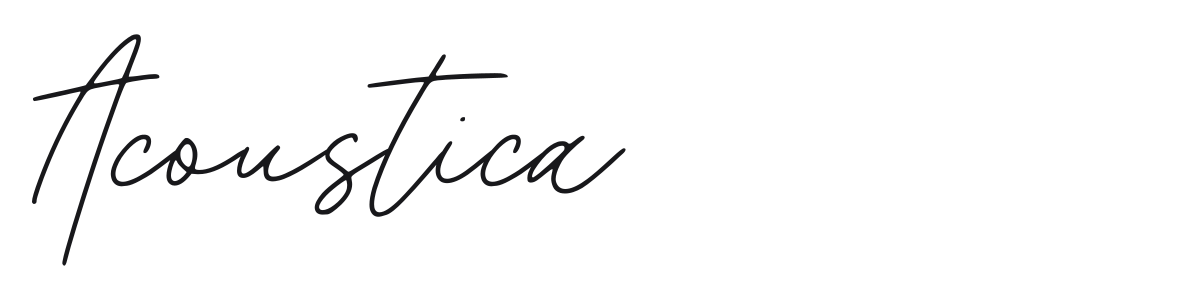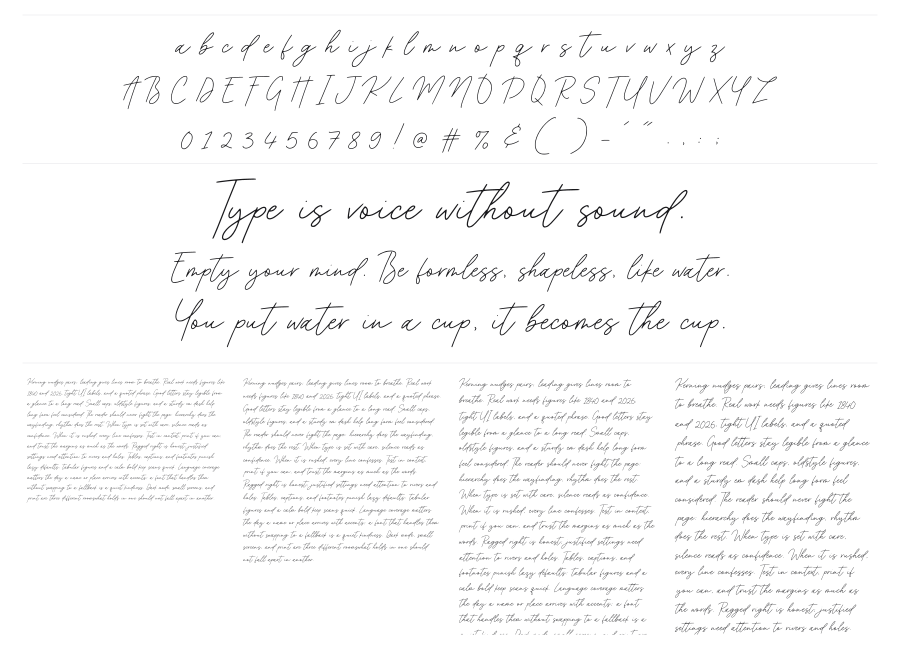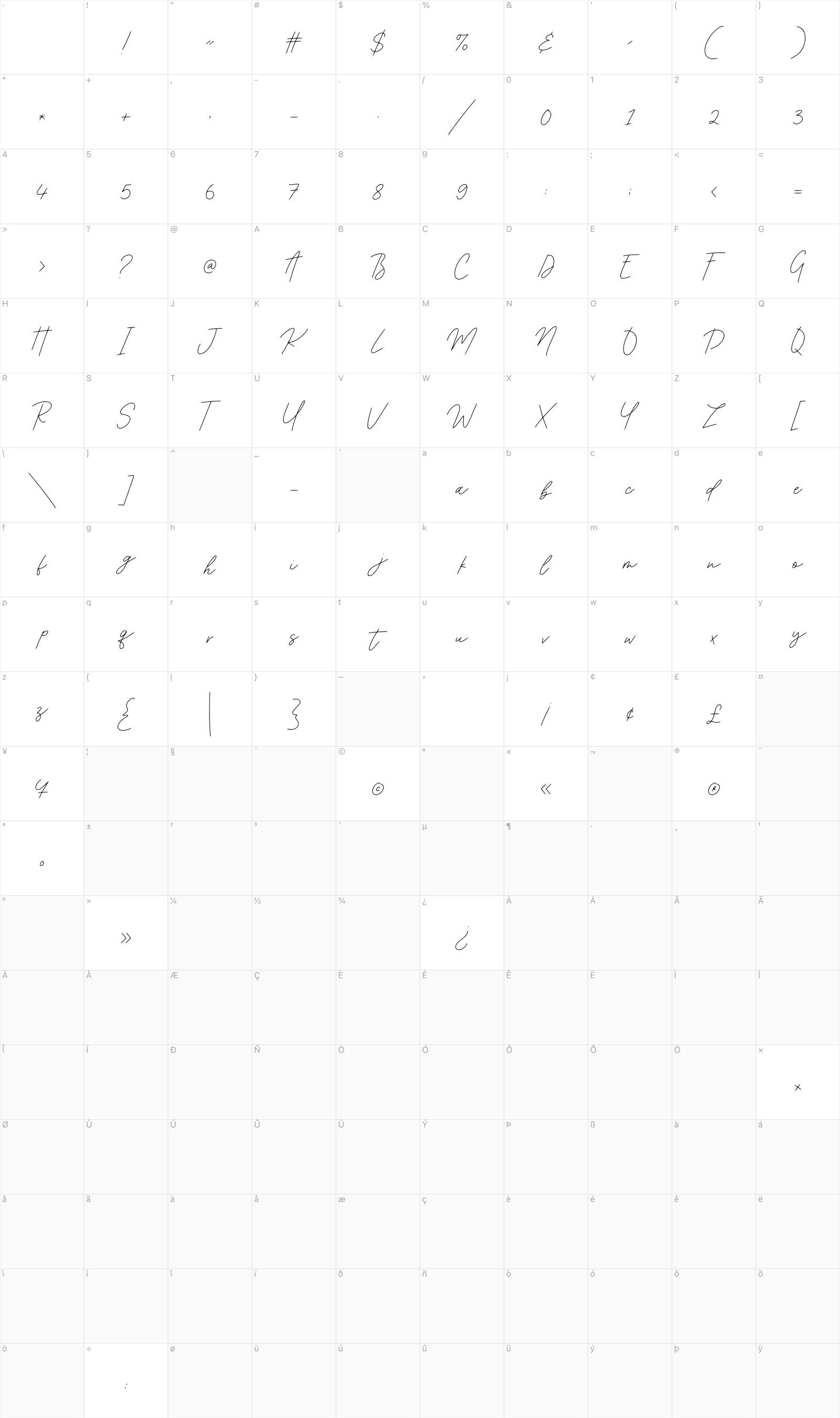
Acoustica
Acoustica is a thin casual script with a loose, flowing hand and long sweeping strokes that make it feel effortlessly graceful. The near-monoweight line and natural baseline variation give it the look of quick, confident handwriting rather than structured calligraphy. It suits brand identities, wedding stationery, and any project that needs a light, romantic touch.